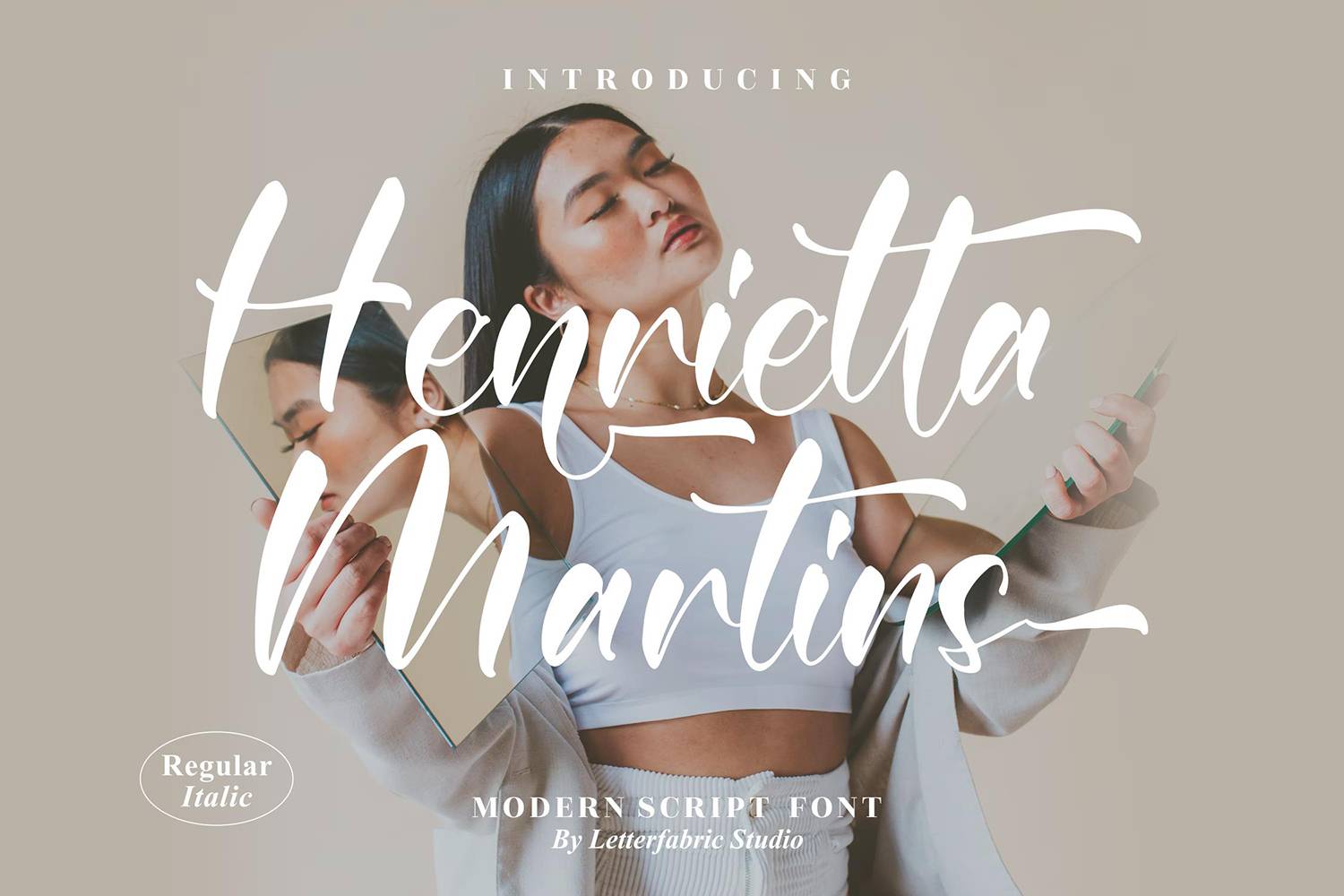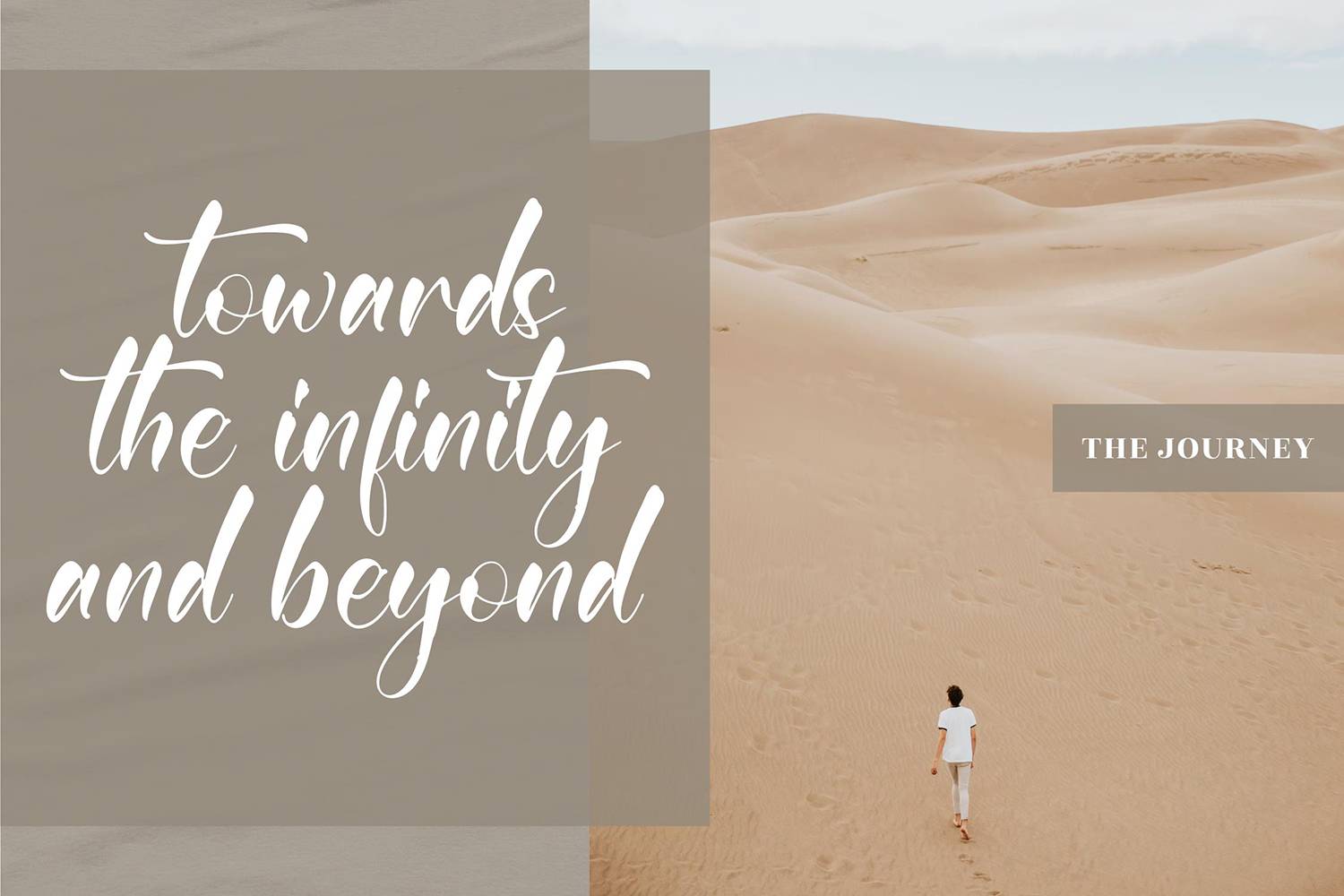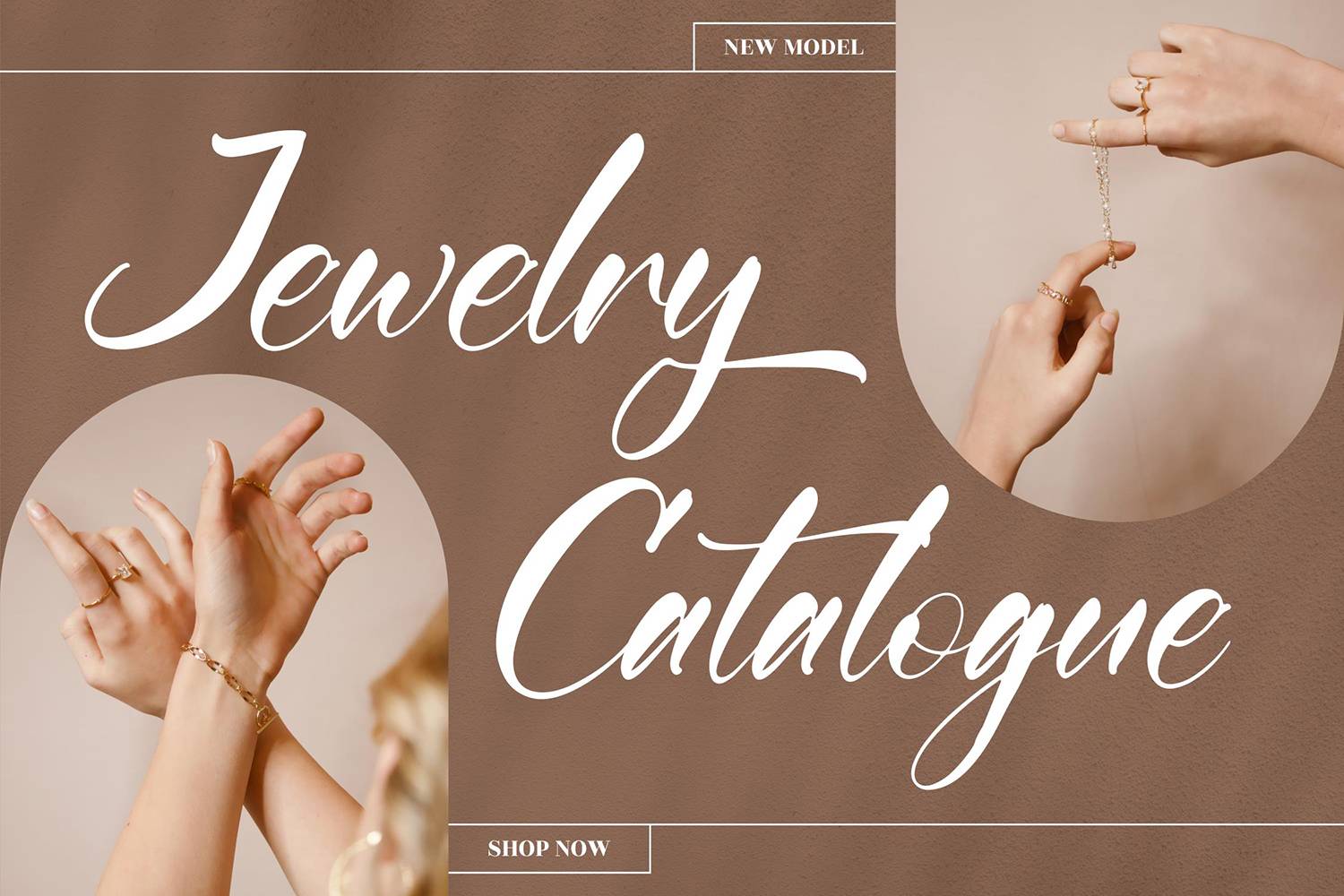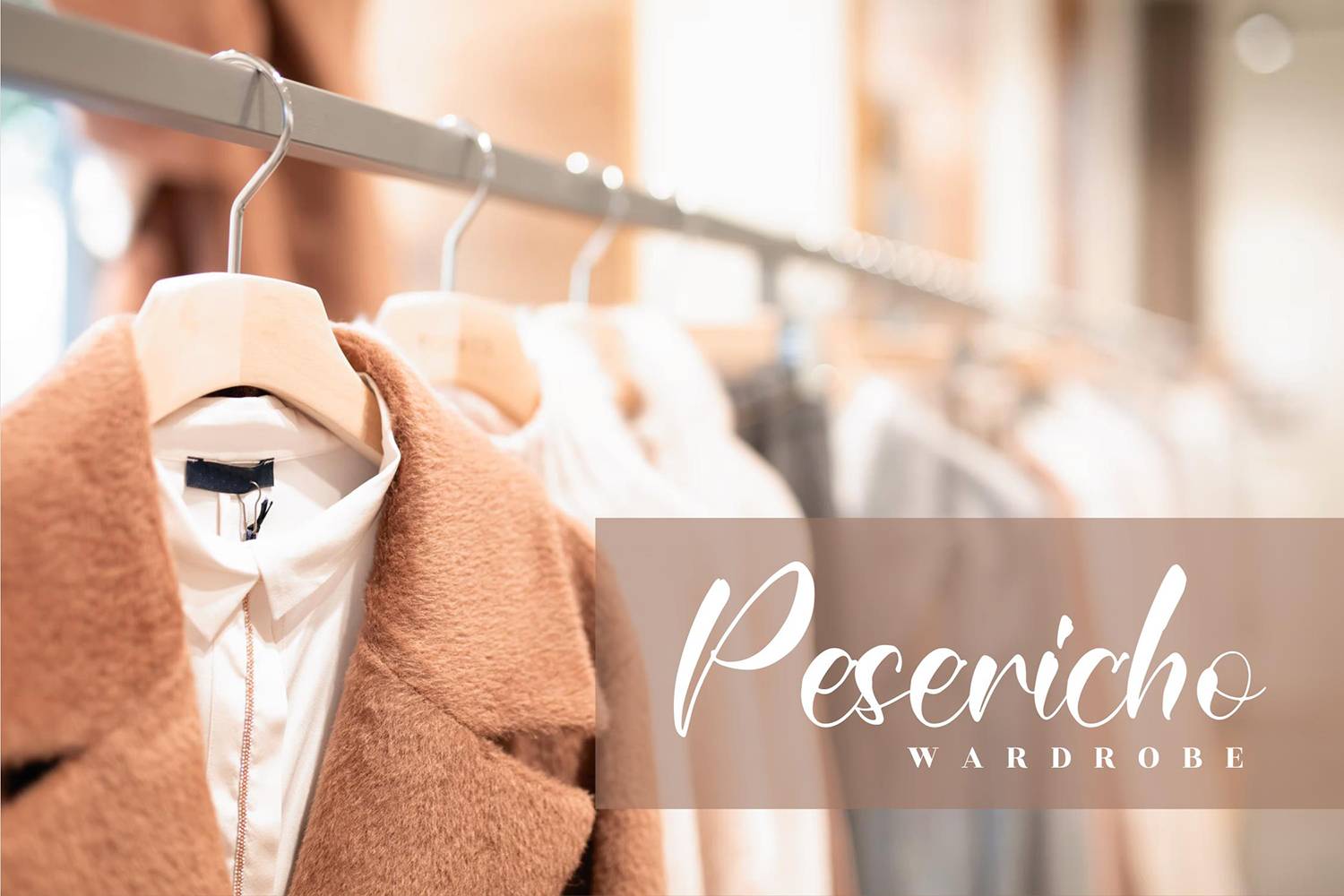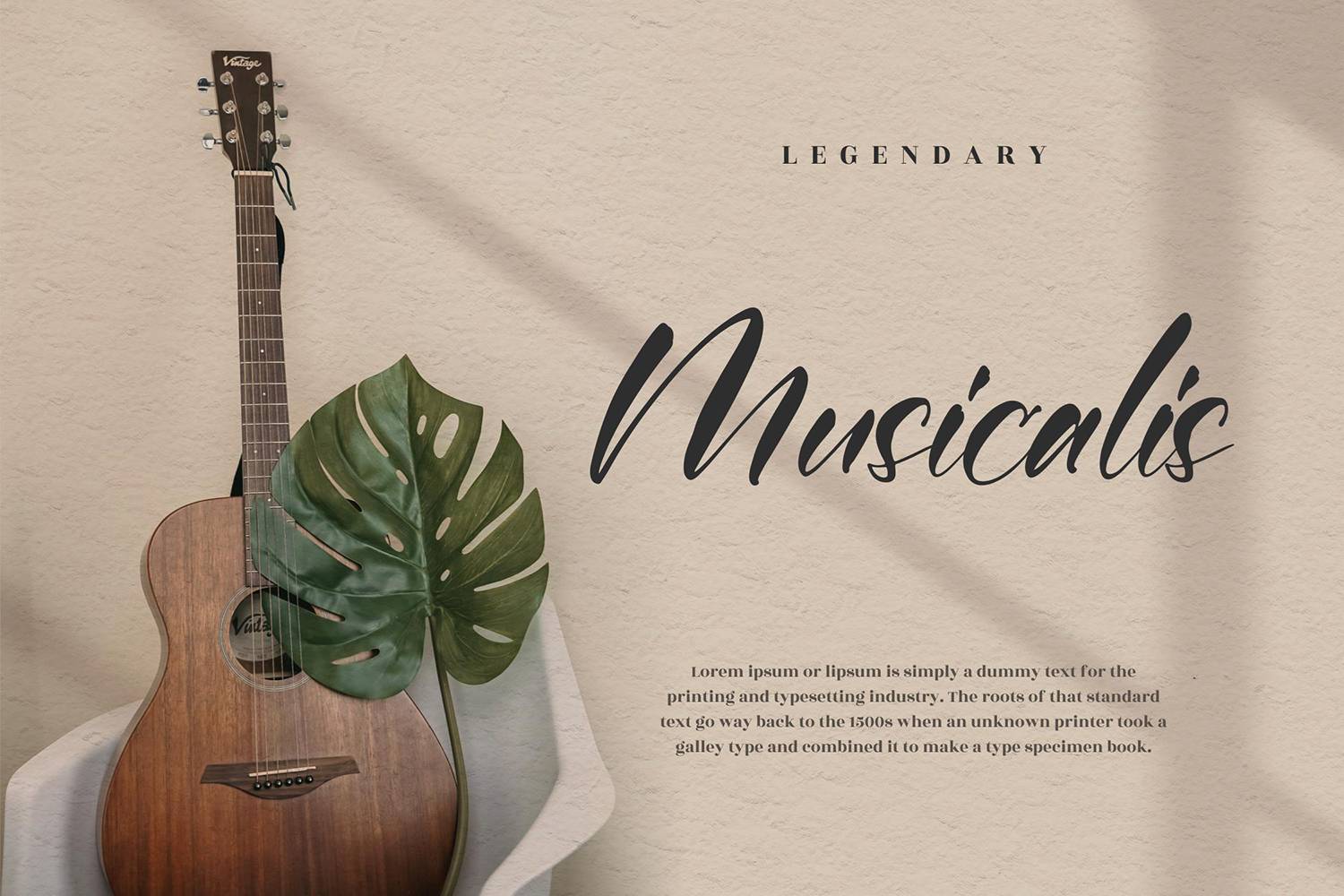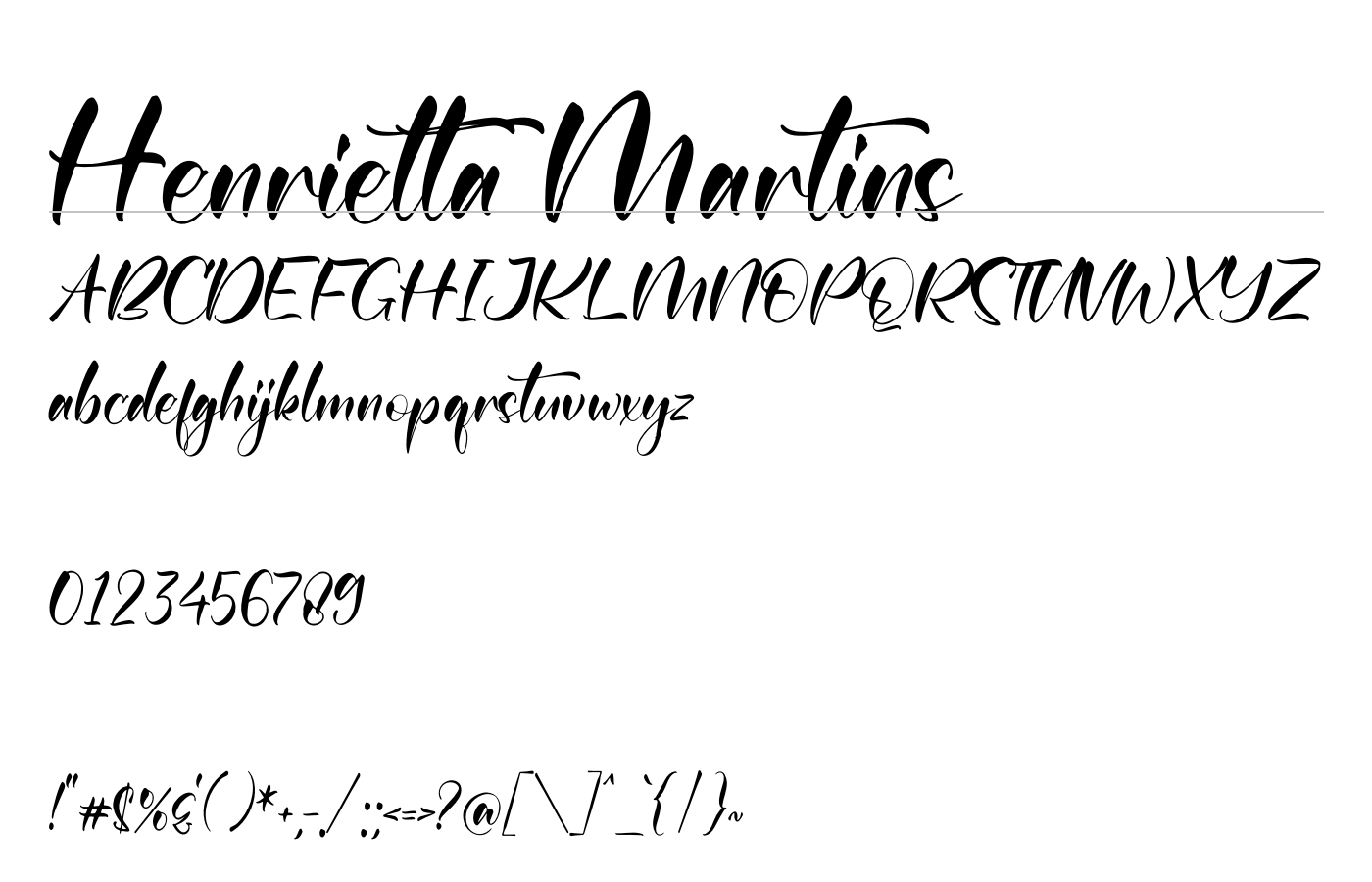
Henrietta Martins is an elegant, script-style font with a fluid and handwritten feel, featuring flowing, brush-like strokes with moderate contrast. Its playful yet refined character makes it perfect for stylish branding, invitations, and creative projects where a personal and artistic touch is desired. This font works well in headlines and decorative text, adding charm and sophistication to any design.
Henrietta Martins Font
About Henrietta Martins Font